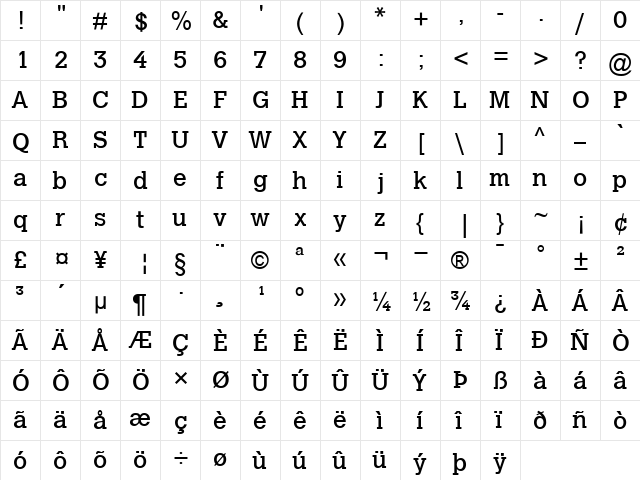
CalvertMT Roman
Design Context for CalvertMT Typeface
CalvertMT offers clean, dependable letterforms without strong stylistic allegiance, making it a practical choice for designers who need flexibility.